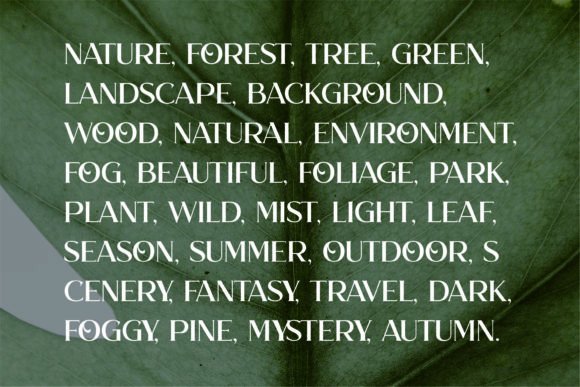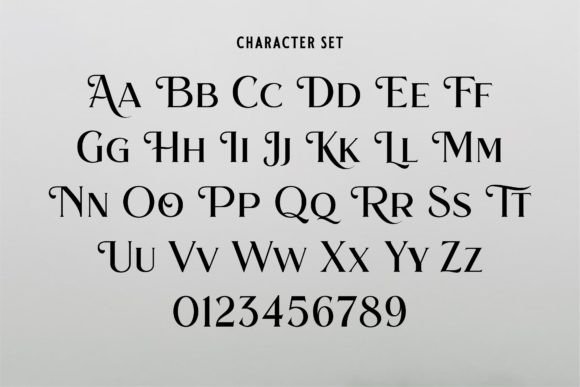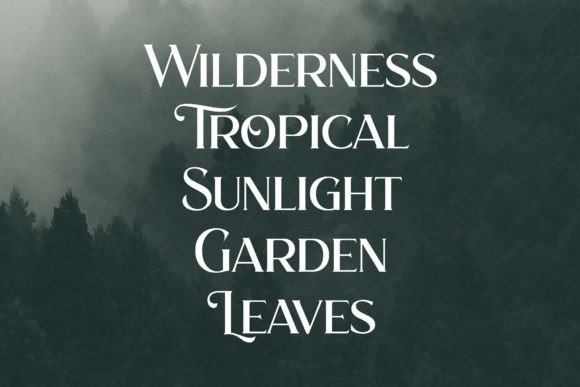
Discover the Elegance of Hello Forest Font: Elevate Your Designs with Sophistication
In the world of typography, fonts play a crucial role in conveying the message and aesthetic of a design. For designers and crafters looking to add a touch of sophistication and elegance to their projects, the Hello Forest Font is an excellent choice. This modern and elegant serif font is designed to bring a refined look to any design, making it perfect for a wide range of applications.
What is Hello Forest Font?
Hello Forest Font is a modern serif font that combines clean, stylish lines with a touch of classic charm. Its elegant design makes it an ideal choice for designers who want to create sophisticated and refined designs. The font features a classic serif style with a modern twist, making it versatile and easy to read.
Key Features of Hello Forest Font
- Modern and Elegant Design: Hello Forest Font boasts a sleek and contemporary design that is perfect for creating sophisticated designs.
- Clean and Stylish Lines: The font features clean and stylish lines that give it a refined and elegant look.
- Classic Charm: With a touch of classic charm, Hello Forest Font is perfect for designs that require a sense of tradition and heritage.
- Easy to Read: The font is designed to be easy to read, making it perfect for body text and other applications where readability is crucial.
- Versatile: Hello Forest Font is versatile and can be used for a wide range of design applications, from logos and branding to packaging and digital media.
Uses of Hello Forest Font
Hello Forest Font is perfect for a variety of design applications, including:
- Logo Design: Create a sophisticated and elegant logo for your brand with Hello Forest Font.
- Branding: Use the font to create a consistent brand identity that exudes elegance and refinement.
- Packaging Design: Add a touch of sophistication to your packaging designs with Hello Forest Font.
- Digital Media: Use the font to create engaging and refined digital media, such as social media graphics and website headers.
- Stationery: Create elegant and sophisticated stationery, such as business cards and letterheads, with Hello Forest Font.
Benefits of Using Hello Forest Font
Using Hello Forest Font in your designs offers several benefits, including:
- Improved Readability: The font is designed to be easy to read, making it perfect for body text and other applications where readability is crucial.
- Increased Sophistication: Hello Forest Font adds a touch of elegance and sophistication to any design, making it perfect for high-end brands and luxury products.
- Versatility: The font is versatile and can be used for a wide range of design applications.
- Time-Saving: With Hello Forest Font, you can create professional-looking designs quickly and easily, saving you time and effort.
How to Use Hello Forest Font
- Experiment with Different Sizes: Try out different font sizes to see how Hello Forest Font looks in different contexts.
- Pair with Other Fonts: Experiment with pairing Hello Forest Font with other fonts to create a unique and interesting look.
- Use in Different Colors: Try out different colors to see how Hello Forest Font looks in different color schemes.
| Font Name | Hello Forest Font |
| Author | havinkpen |
Hello Forest Font is a modern and elegant serif font that is perfect for designers and crafters looking to add a touch of sophistication to their designs. With its clean and stylish lines, classic charm, and ease of readability, this font is versatile and can be used for a wide range of design applications. Whether you’re creating a logo, branding materials, or digital media, Hello Forest Font is an excellent choice.